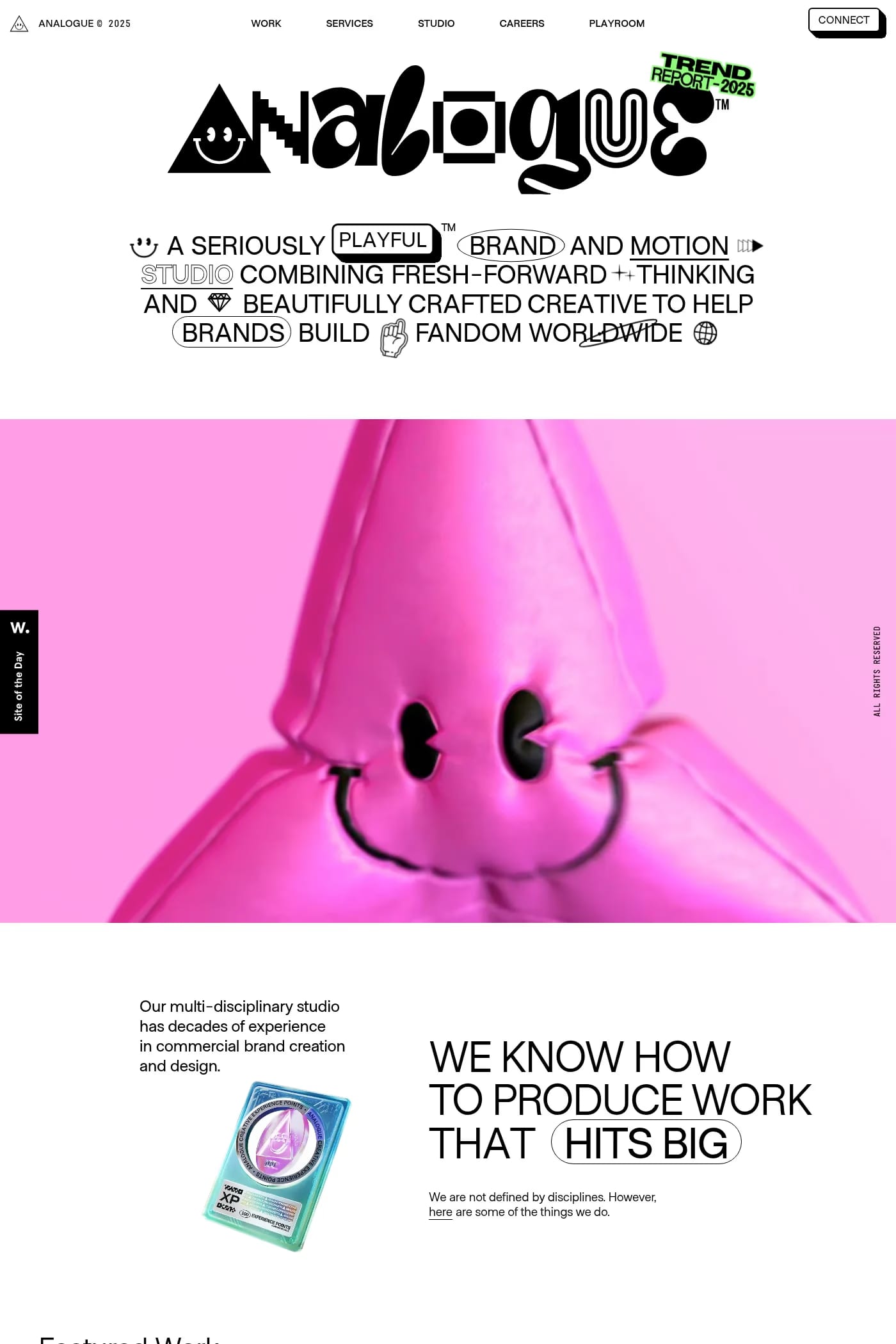
Italian Plate No1 Mono is a monospace typeface from Playtype.
The Italian Platform No1 Monospaced typeface is a wide typeface with a lot of personality. The monospacing, where each glyph takes up the same horizontal space, is balanced by modifications made on selected glyphs.